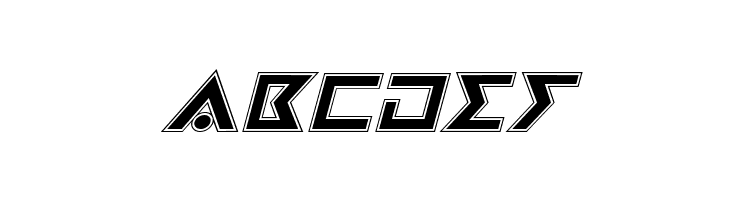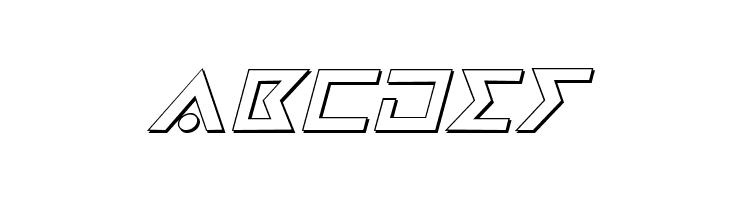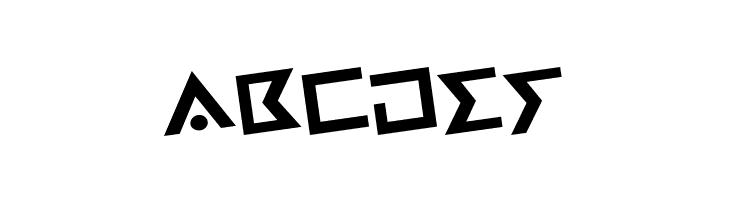
Zegirats Font
- Font: Zegirats
A bold, futuristic font with sharp angles and geometric shapes, featuring an italic style.
A bold, geometric 3D italic font with angular lines and a futuristic style.
A bold, angular font with a futuristic and geometric style.
A bold, angular font with a futuristic and edgy design.
A bold, angular, and futuristic italic font with geometric elements.